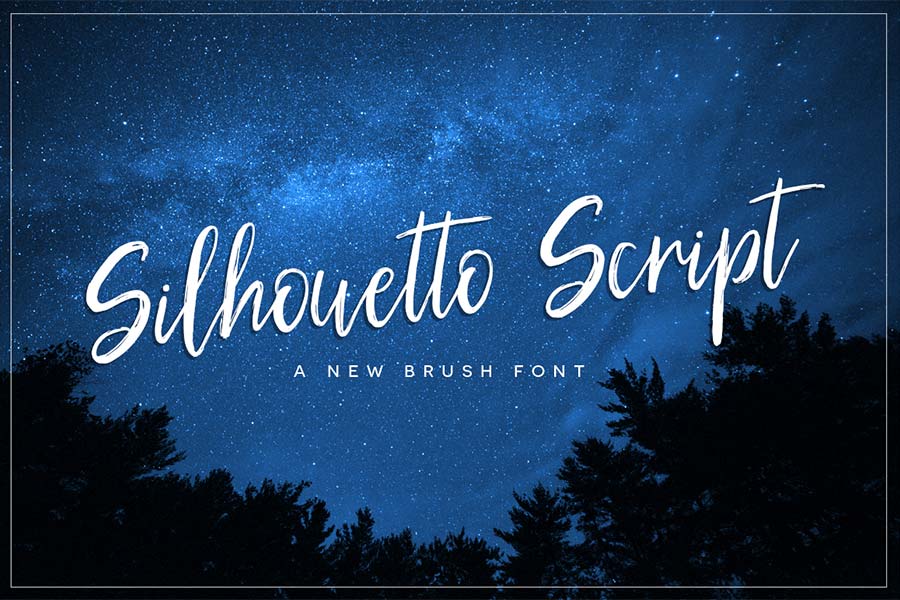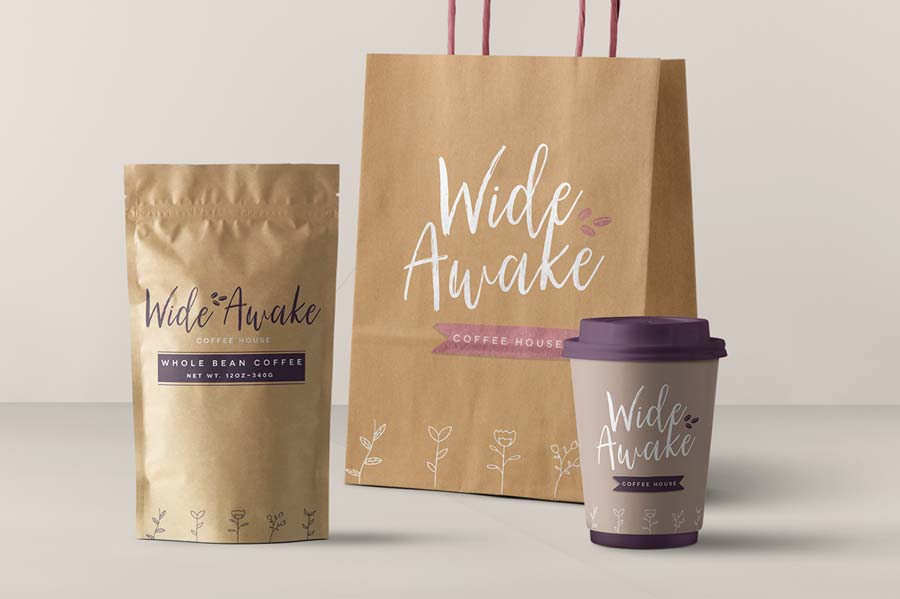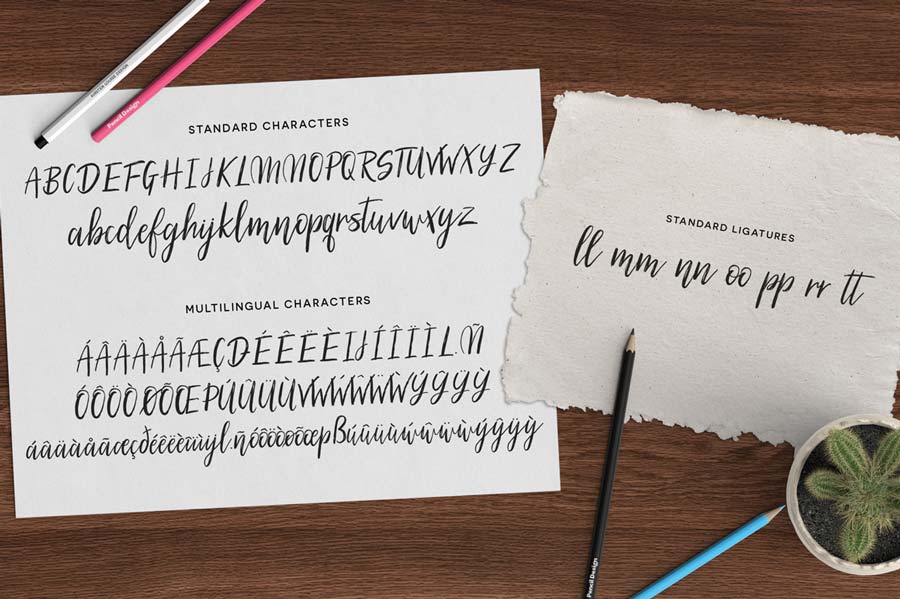
Silhouetto Script is a stylish looking free handwritten brush font. It has fluidic writing style that can produce a smooth, elegant and yet authentic with its stroke effect.
Silhouetto Script supports multiple languages and comes with standard ligatures. It can be used for logotype branding designs, posters, invitation cards, posters, merchandise designs and more. You can download this font 100% free of charge and use it for both personal and commercial projects.
- Category: Handwriting, Script